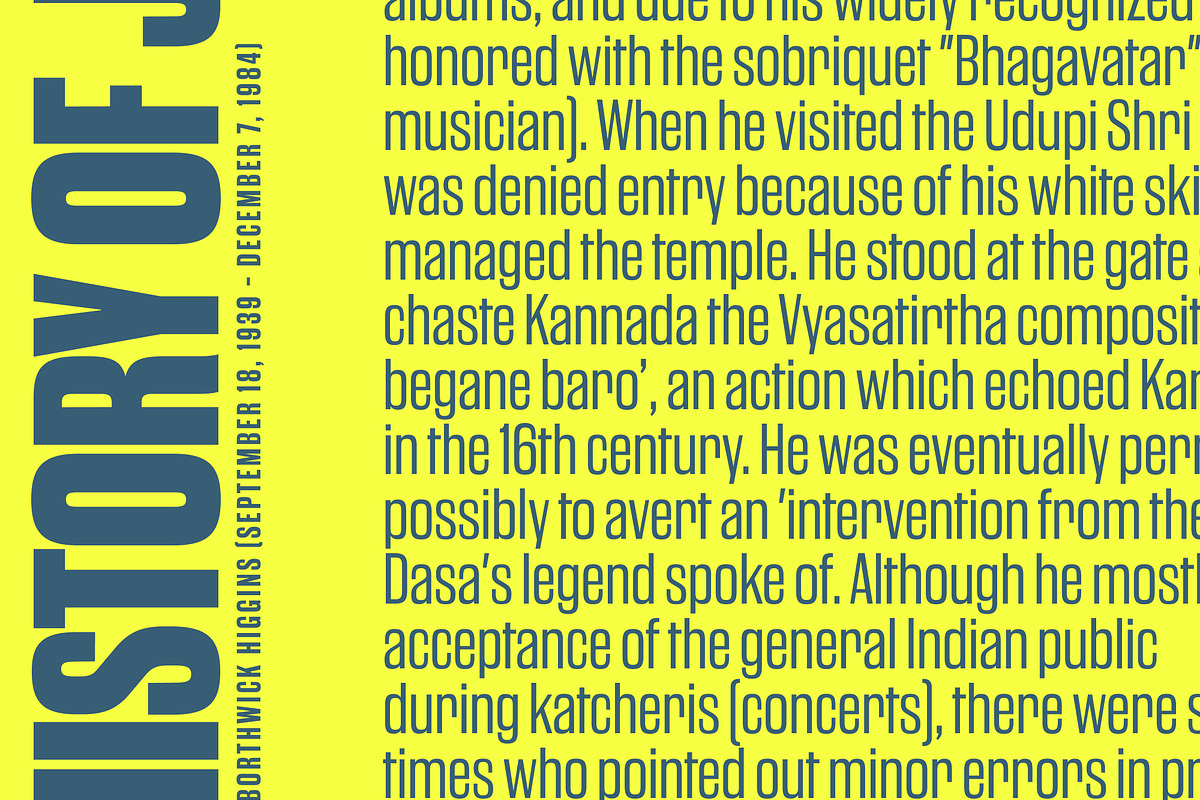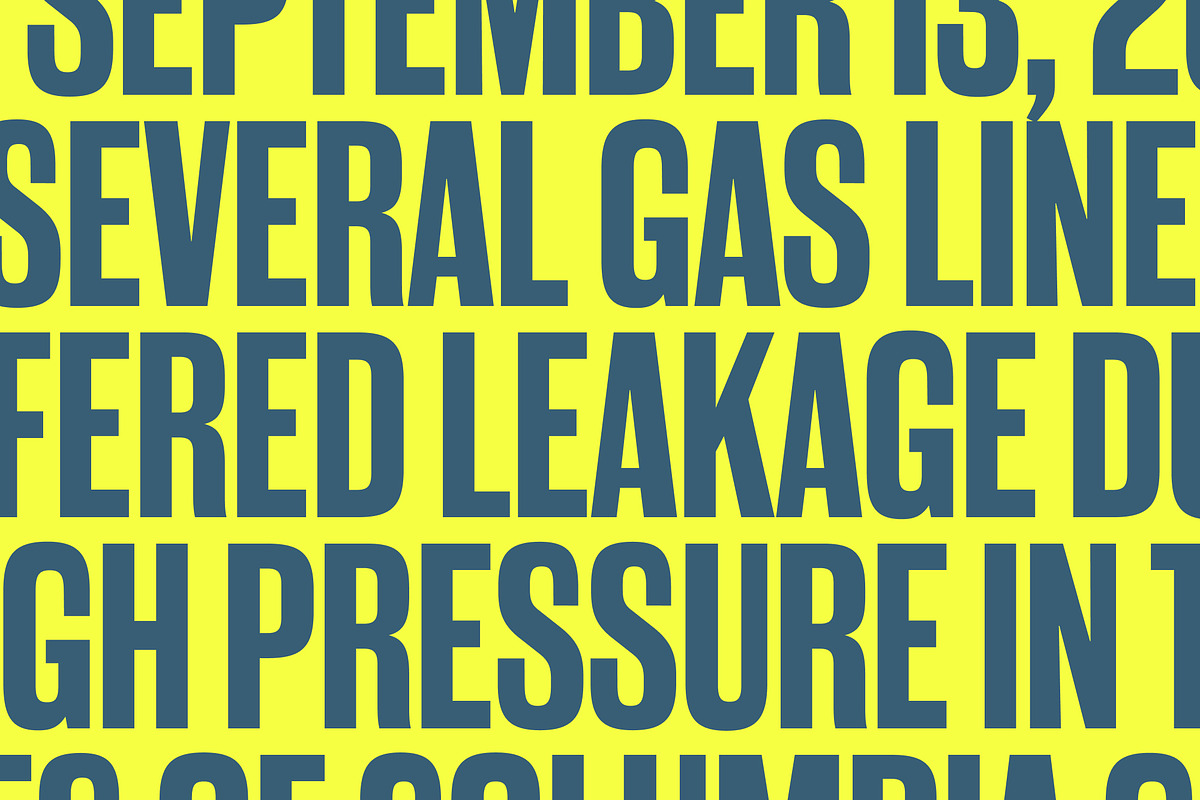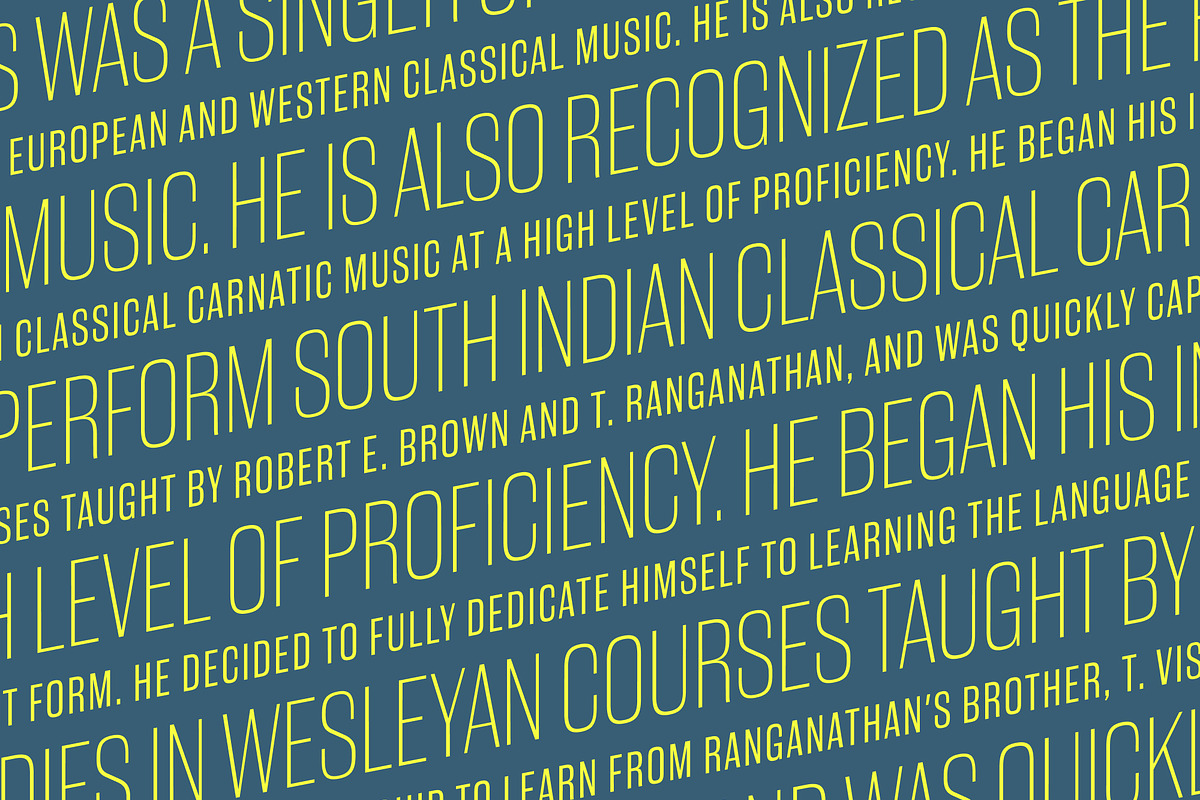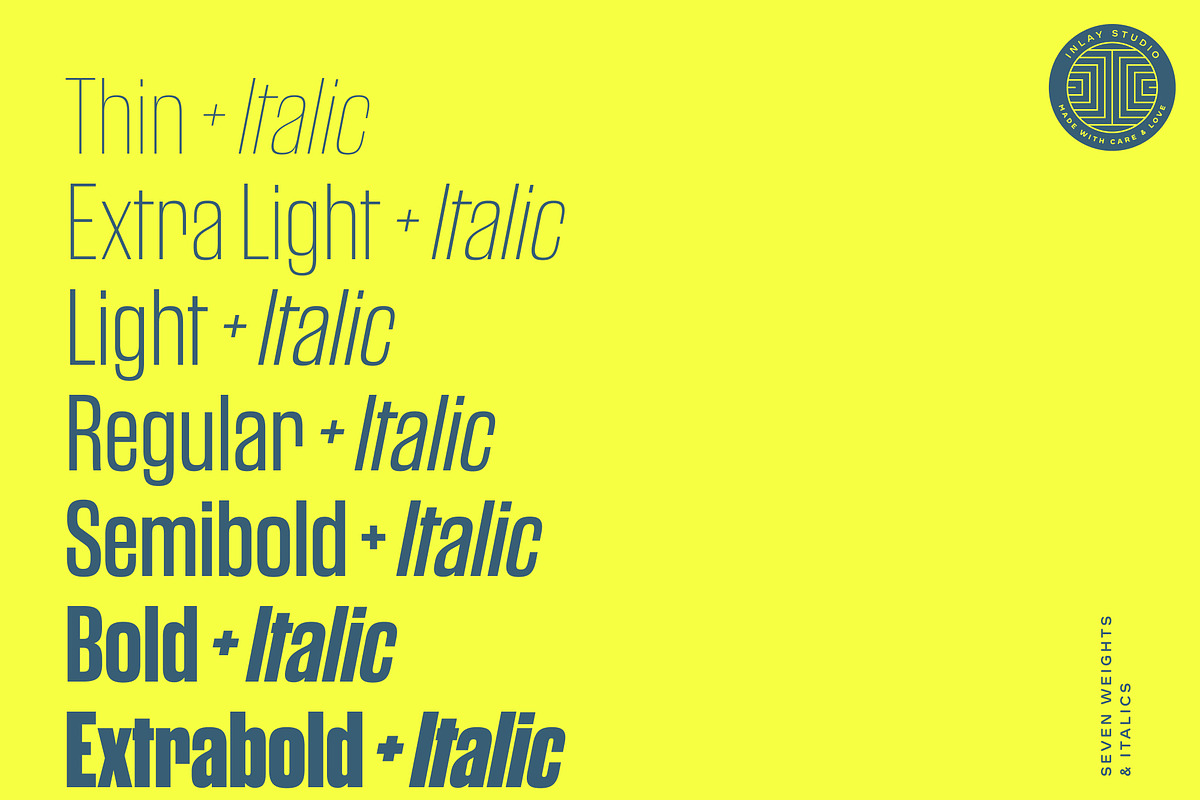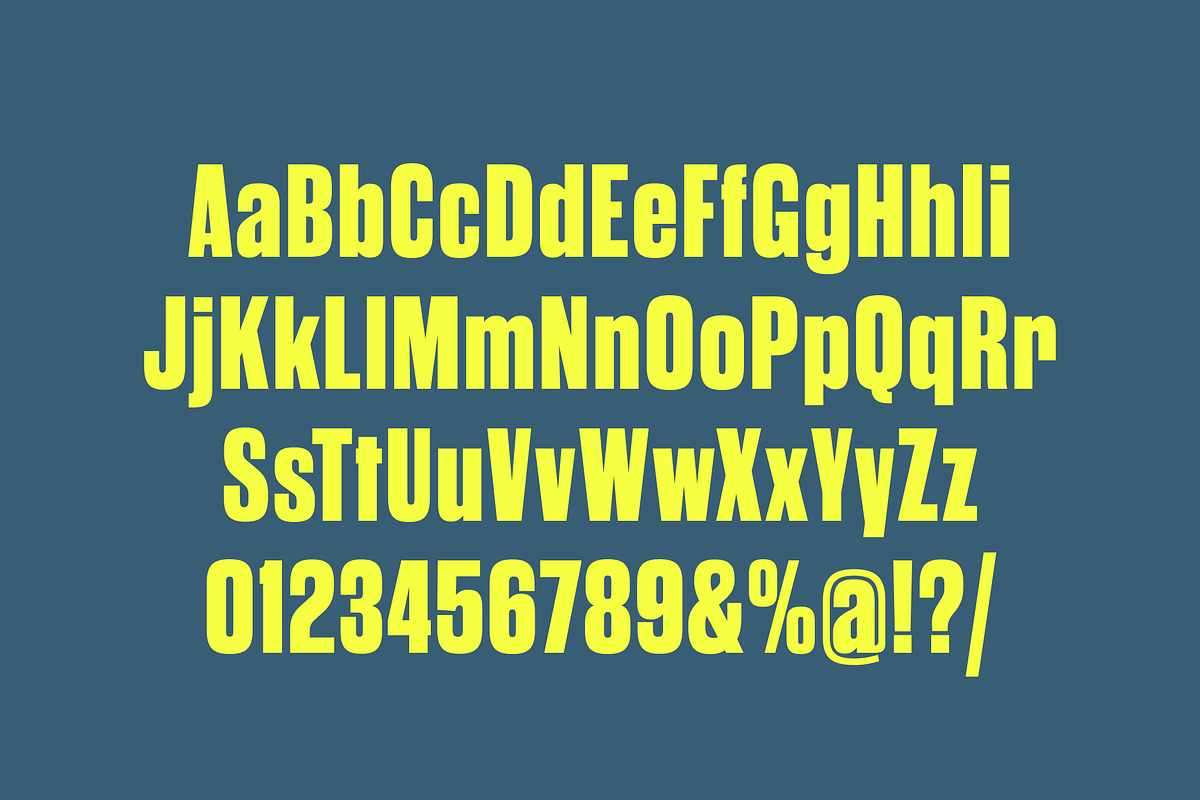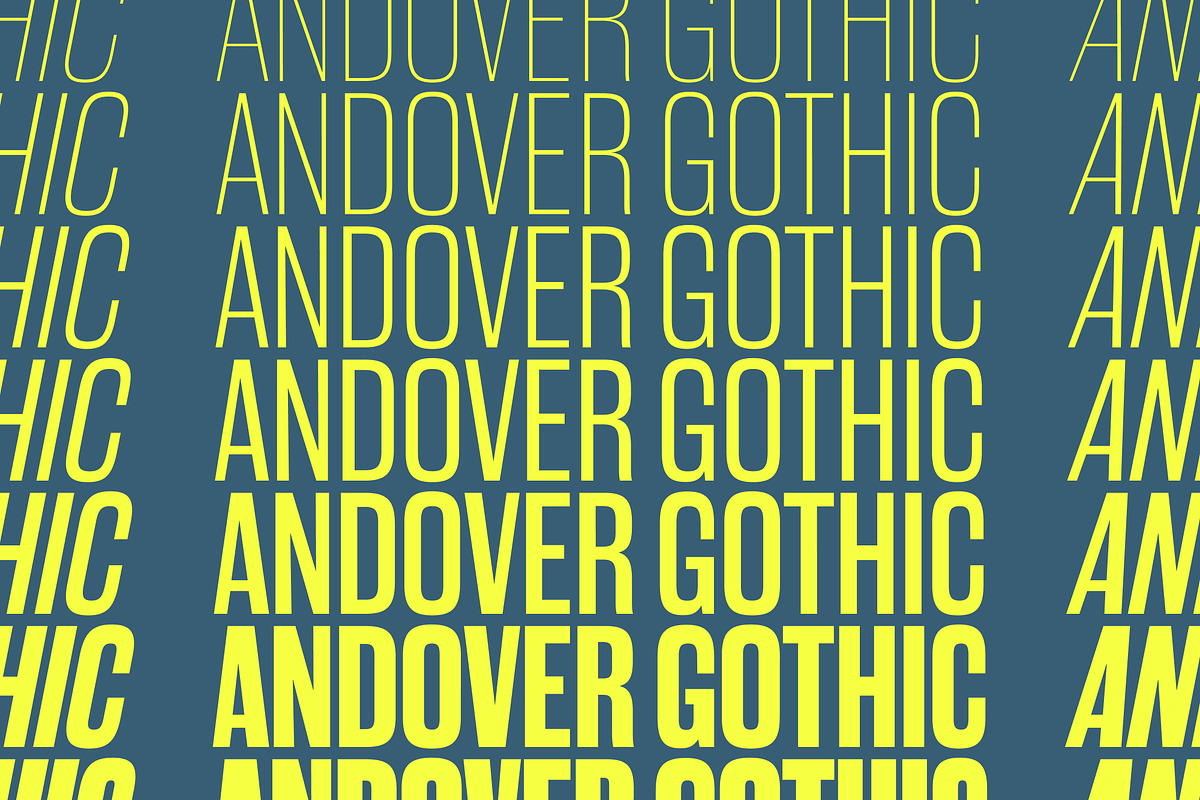
Andover Gothic — A Condensed Grotesk
Meet Andover Gothic, a powerhouse font designed for maximum headline impact. It ranges from authoritarian in its heavier weights to delightfully quirky at the lighter weights.
Available in 7 weights and italics